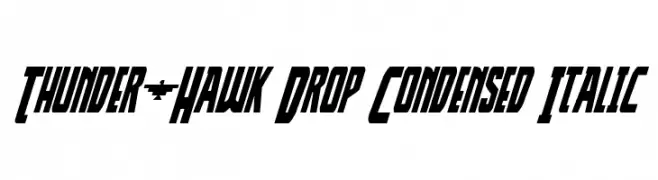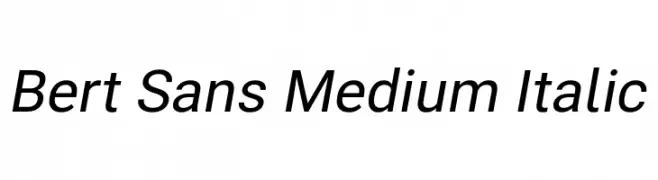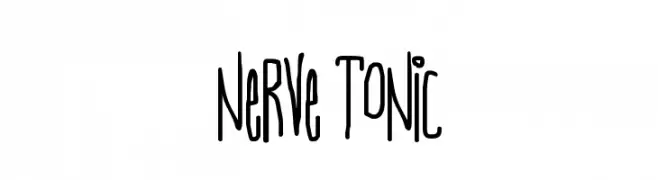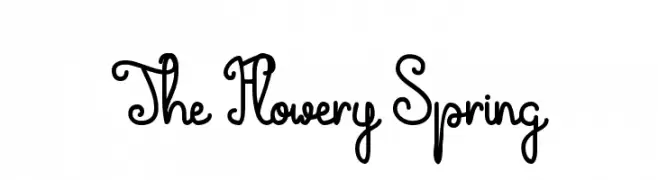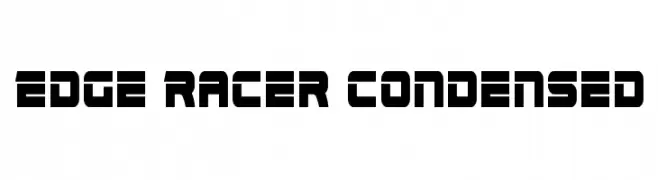
A bold, condensed, and italicized font with a dynamic and modern style.
A modern, medium-weight italic sans-serif font with a clean and dynamic style.
A bold, decorative blackletter font with intricate detailing and a Gothic style.
A tall, narrow, hand-drawn font with a unique and artistic style.
A bold, geometric font with a modern and professional look.
A whimsical script font with looping, interconnected letters and decorative swirls.
A bold, futuristic, and condensed font with a geometric style.
A futuristic, bold italic font with angular lines and a sci-fi aesthetic.